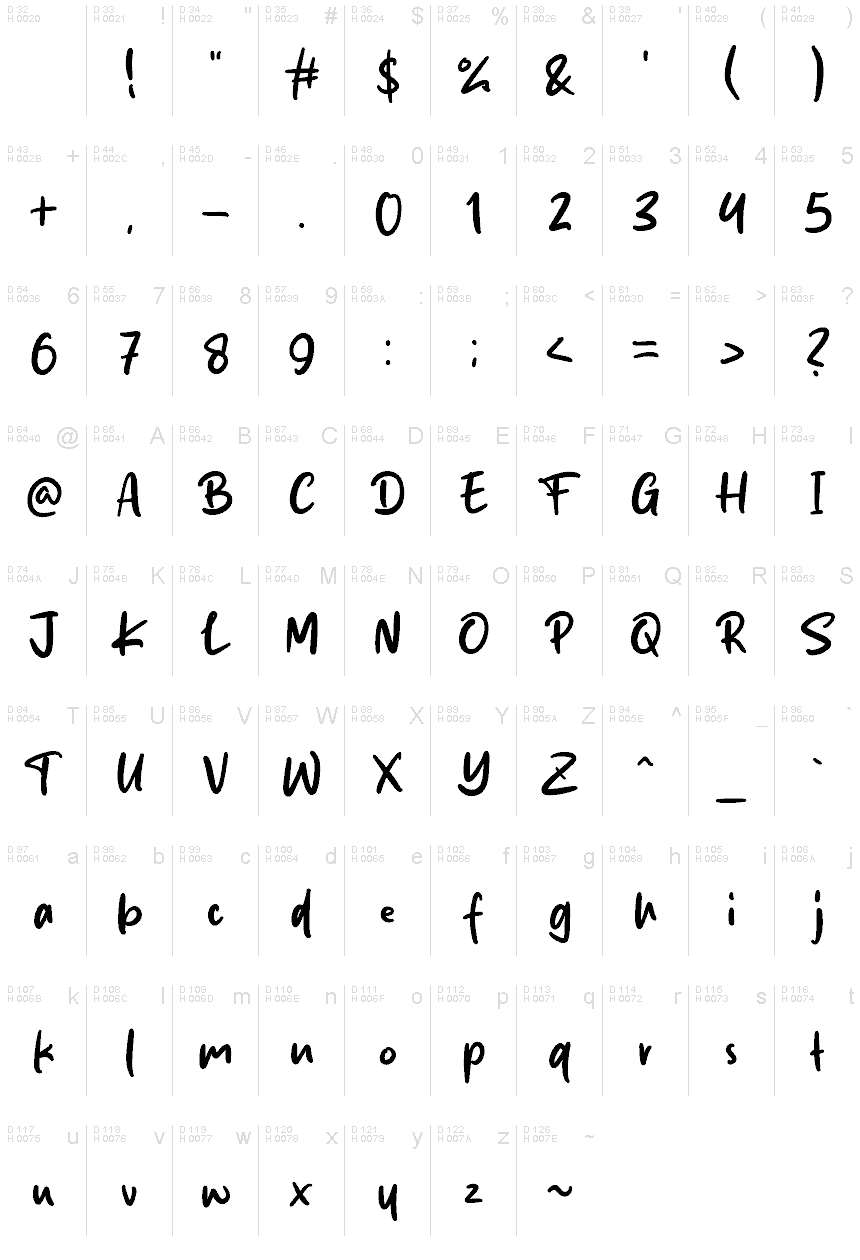
Social Confident
Social Confident font by MJType is a scripted free handwriting font that features an expressive and energetic style. Handwriting fonts can have the slight or severe imperfections that do not really matter as their target use is in creating stylish and easy-to-use files in seconds.
Free handwritten released for graphic layouts about comics, cookbooks, branding, social media posts, posters and banners, t-shirts and clothes designs.